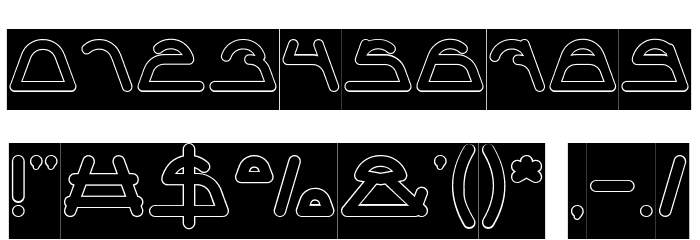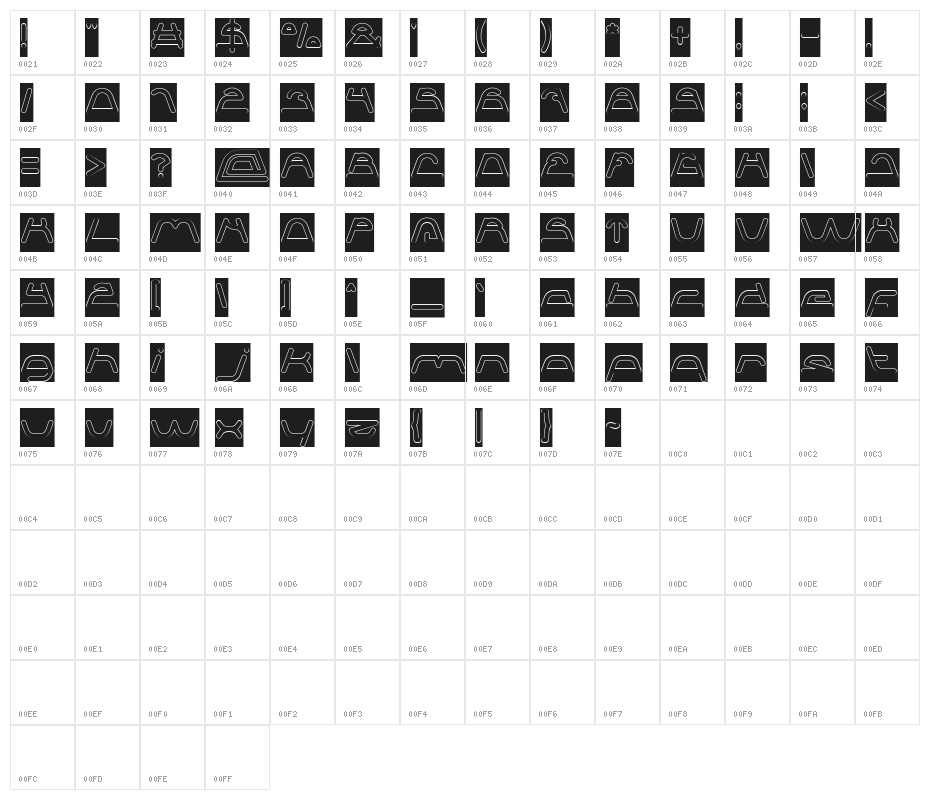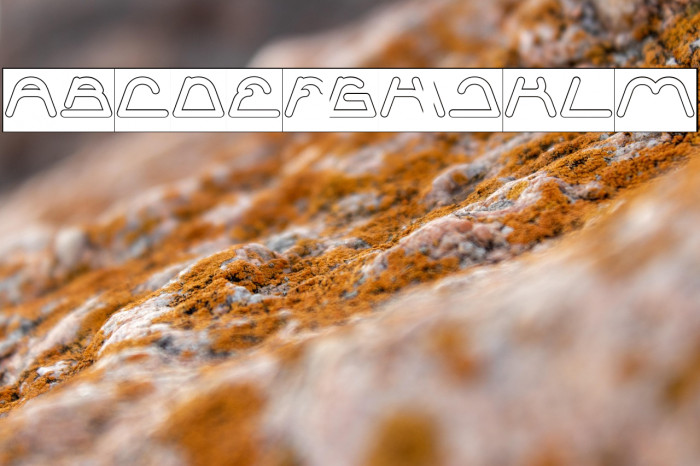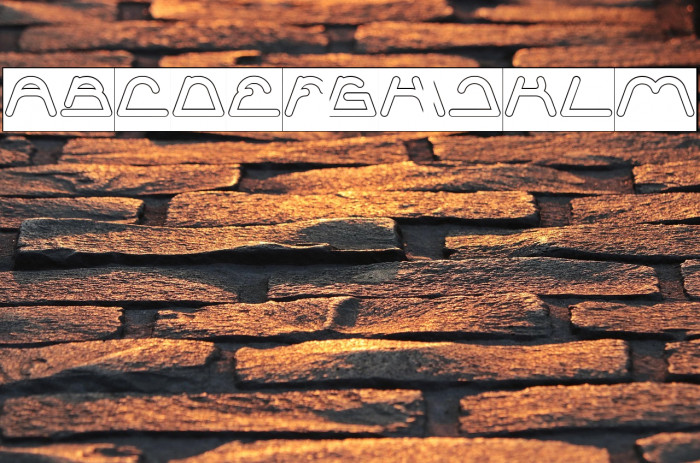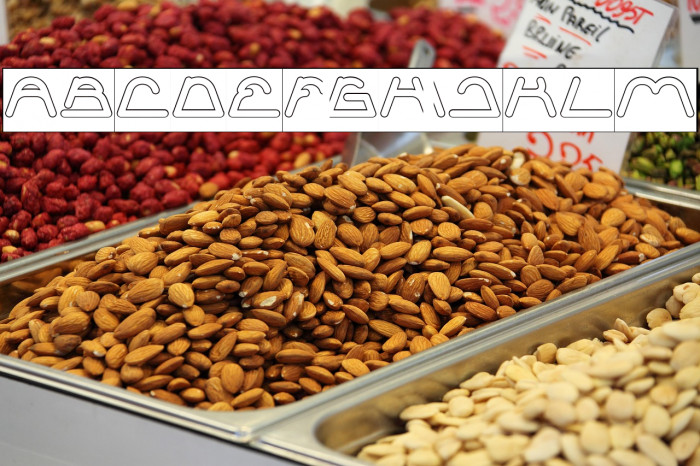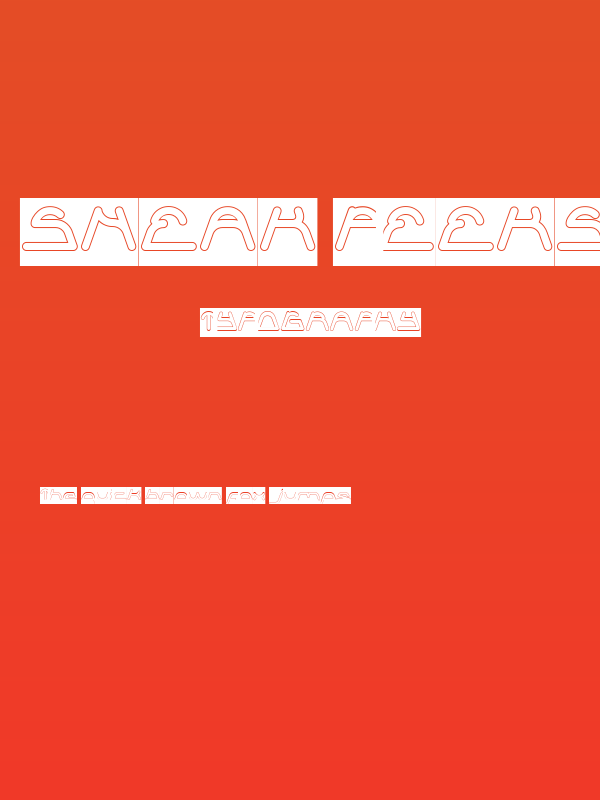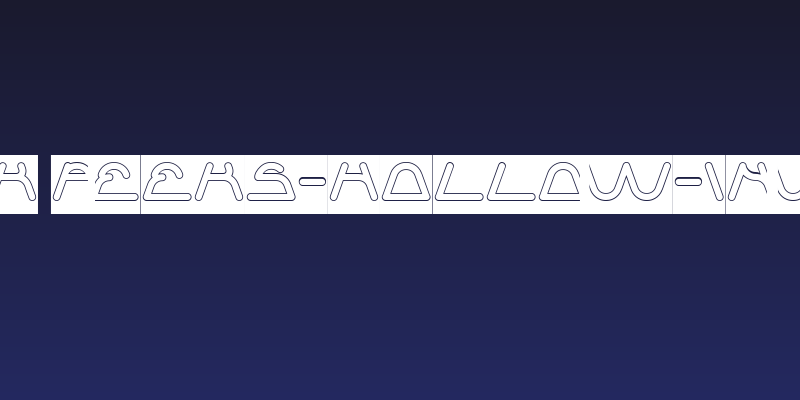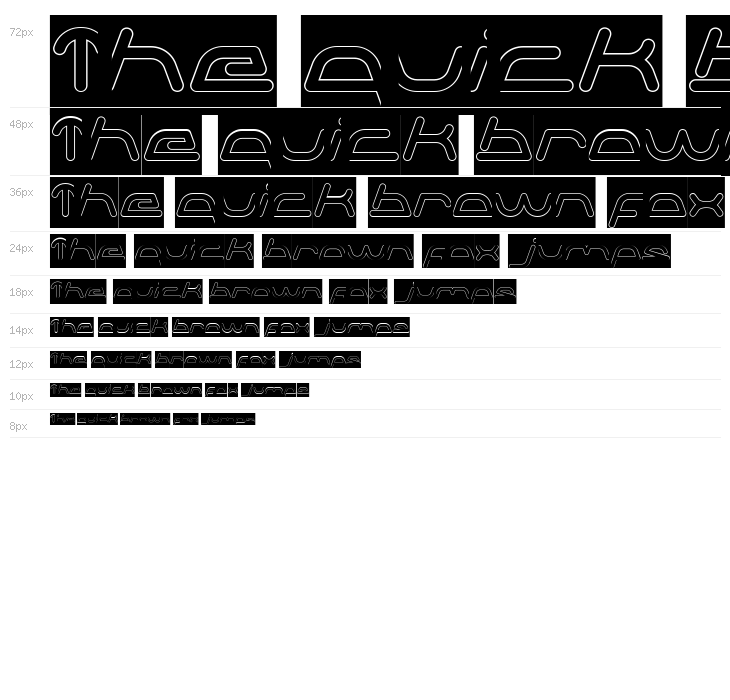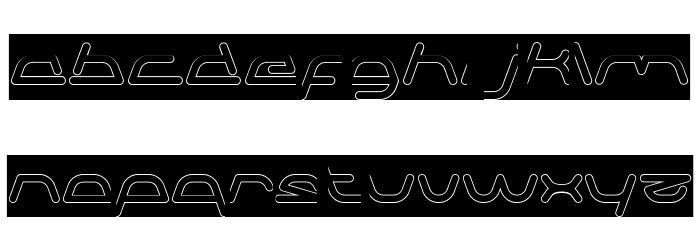
Sneak Peeks-Hollow-Inverse Font
Sneak Peeks-Hollow-Inverse Description
This font features a unique hollow design with an inverse style, where the interior of each character is cut out, creating a striking visual effect. The lines are smooth and rounded, giving it a futuristic and modern appearance. The uppercase and lowercase letters maintain a consistent style, with a playful yet structured form. Numbers and special characters are designed to match the overall aesthetic, ensuring uniformity across all elements. The font's distinctive look makes it stand out, ideal for creative and bold design projects.